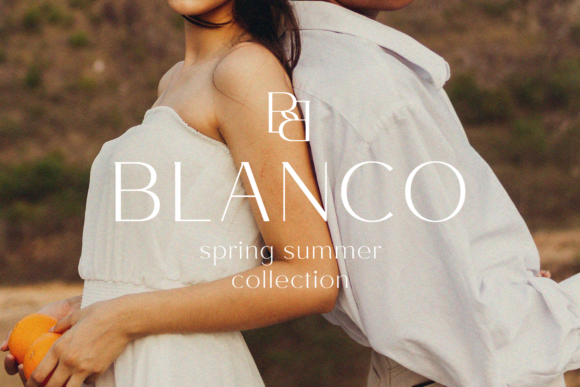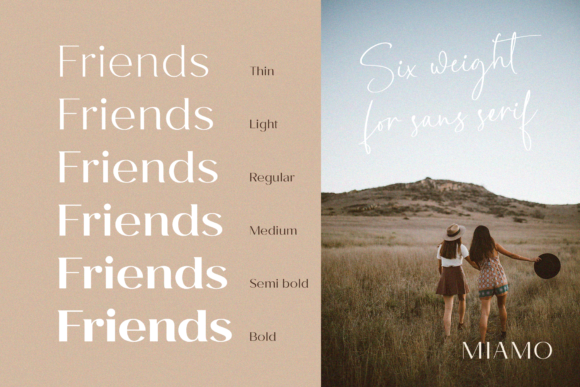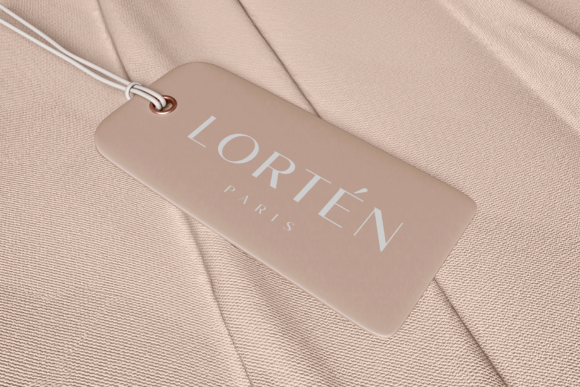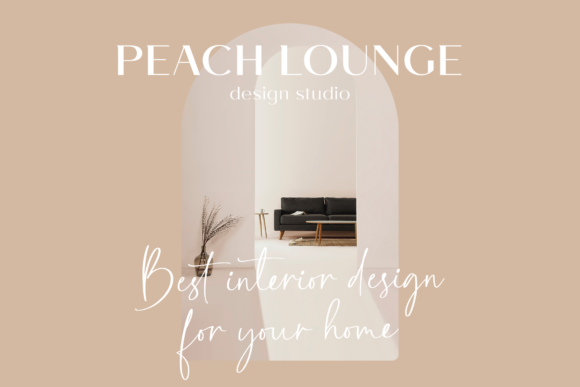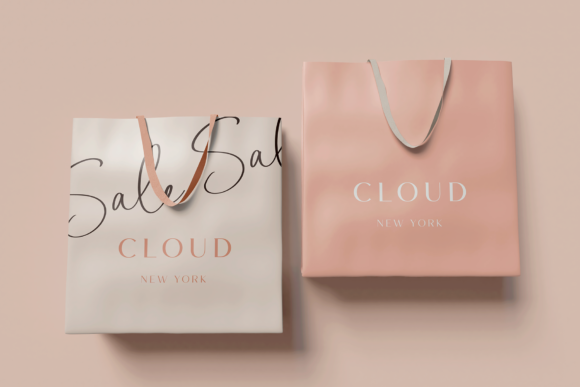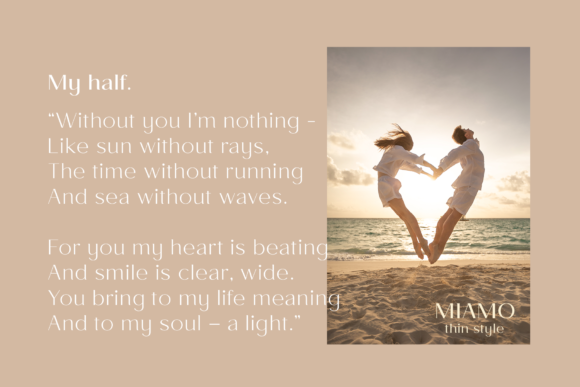
Introduction to Miamo Font
Do you remember that moment when you’re working on a creative project and the perfect font just slips your mind? You envision a design that’s bright, cheerful, and full of life, but without the right font, it’s just not happening. This is exactly where the Miamo Font comes in – a beautifully designed duo of fonts that will add a touch of elegance and whimsy to your crafts.
As a designer, you’re constantly on the lookout for high-quality design resources that can elevate your work. The Miamo Font is a valuable addition to your collection, offering a unique combination of styles that can be used together or separately. With its transparent background and PUA encoding, you’ll have access to all the glyphs and swashes you need to create stunning designs.
Whether you’re working on a free download project or a paid commission, the Miamo Font is sure to impress. Its versatility and chic aesthetic make it an ideal choice for a wide range of creative projects, from digital art to print designs.
Key Features of Miamo Font
- High-quality design resource with a transparent background, perfect for creative projects
- Unique, stylish design ideal for modern and minimalist design projects
- Supports various languages and characters, making it a versatile design resource
- Easy to customize and use in various creative projects, including logos, graphics, and more
Honest Review: Miamo Font
I recently came across the Miamo Font and I must say, it’s been a game-changer for my creative projects. This free download has been a reliable design resource for me, offering high-quality fonts that are perfect for various design needs.
- ✨ Easy to use: The Miamo Font is incredibly easy to integrate into my designs, thanks to its transparent background and clear typography.
- ✨ Versatile: I’ve used this font for everything from logos to branding materials, and it always looks professional and clean.
- ✨ High-quality: The font is crisp and clear, even at small sizes, which is essential for designs that need to be legible from a distance.
That being said, there are a few limitations to the Miamo Font:
- ⚠️ Limited font styles: While the font itself is great, there are only a few styles to choose from, which can limit its versatility in certain designs.
- ⚠️ Not ideal for complex designs: Due to its simplicity, the Miamo Font may not be the best choice for designs that require a lot of intricate details or ornate typography.
Overall, I’m really impressed with the Miamo Font. It’s a great addition to any design resource library, and I highly recommend it for any creative project that needs a clean and professional font.
Tips for Getting the Most Out of Miamo Font
To get the most out of the Miamo Font, use it on a transparent background to create a modern and clean design. You can also experiment with different font sizes and colors to create a unique look.
The Miamo Font is perfect for a wide range of creative projects, including social media graphics, presentations, logos, brochures, and business cards. Its high-quality design and transparent background make it an ideal choice for designers and non-designers alike.